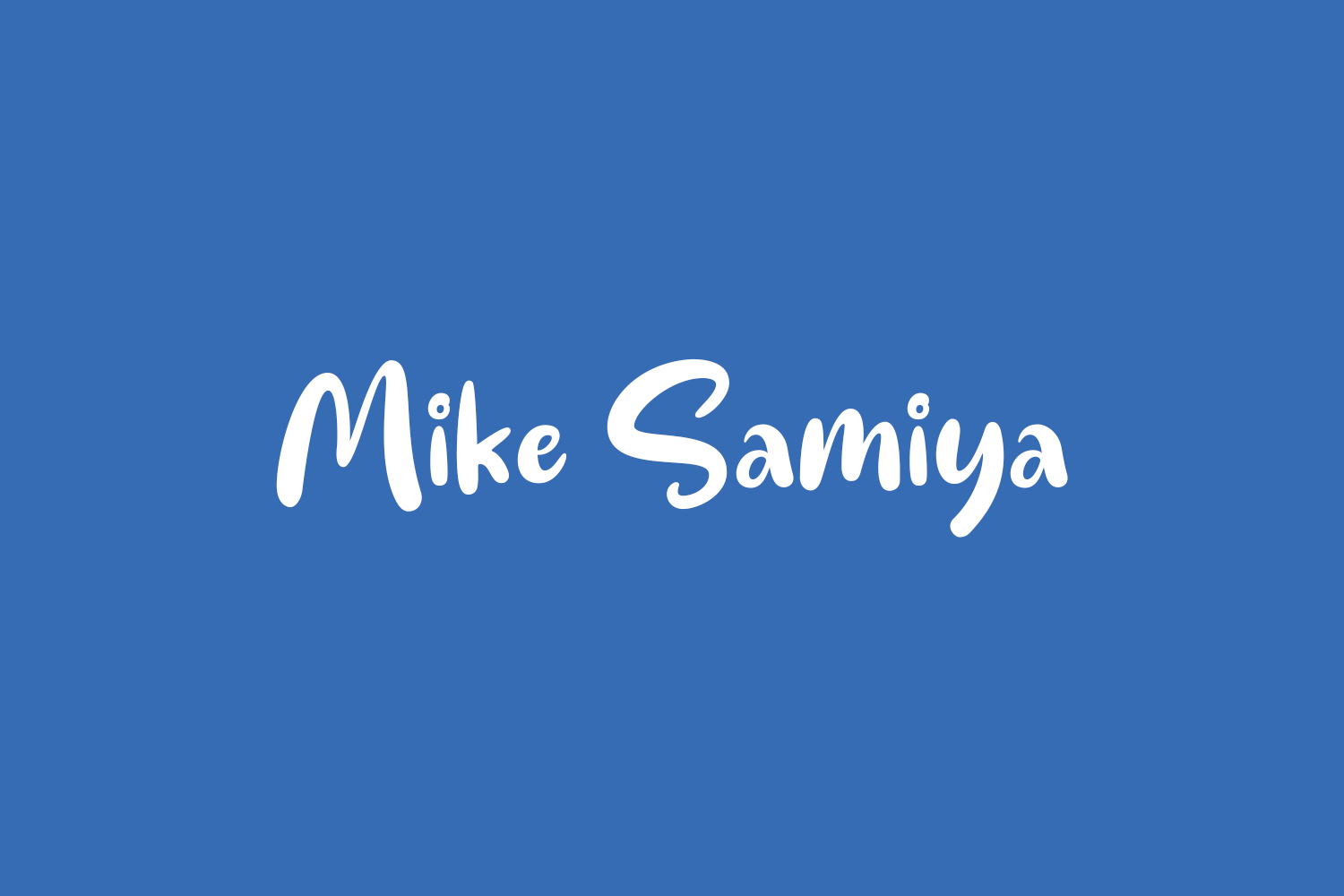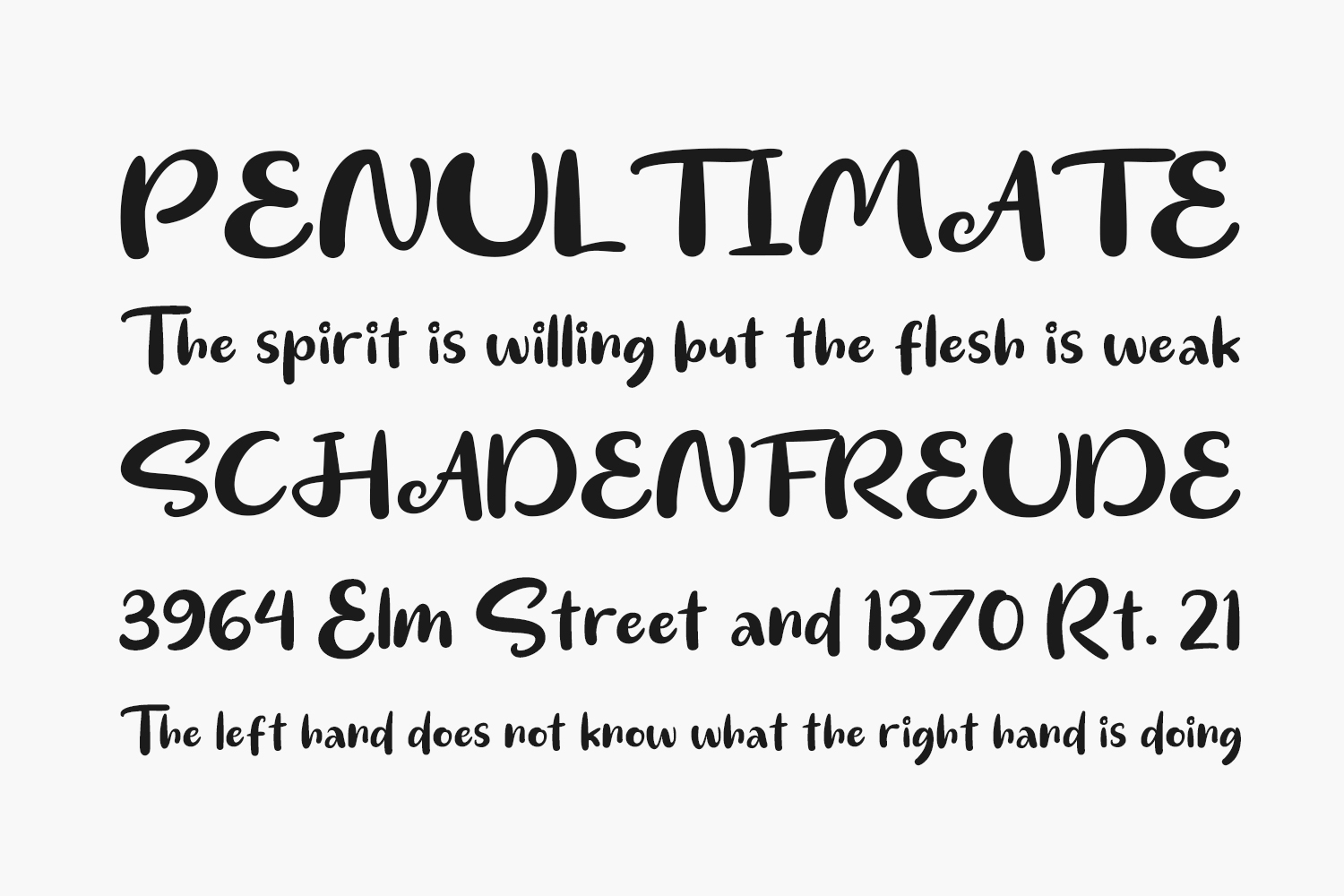
Introducing Mike Samiya Free Font, a dynamic script font radiating coolness and power with its authentically crafted lettering. Elevate your design concepts to new heights with this font that guarantees to make every project stand out. Download the font for free if you need it for personal use or purchase the full version for commercial use.